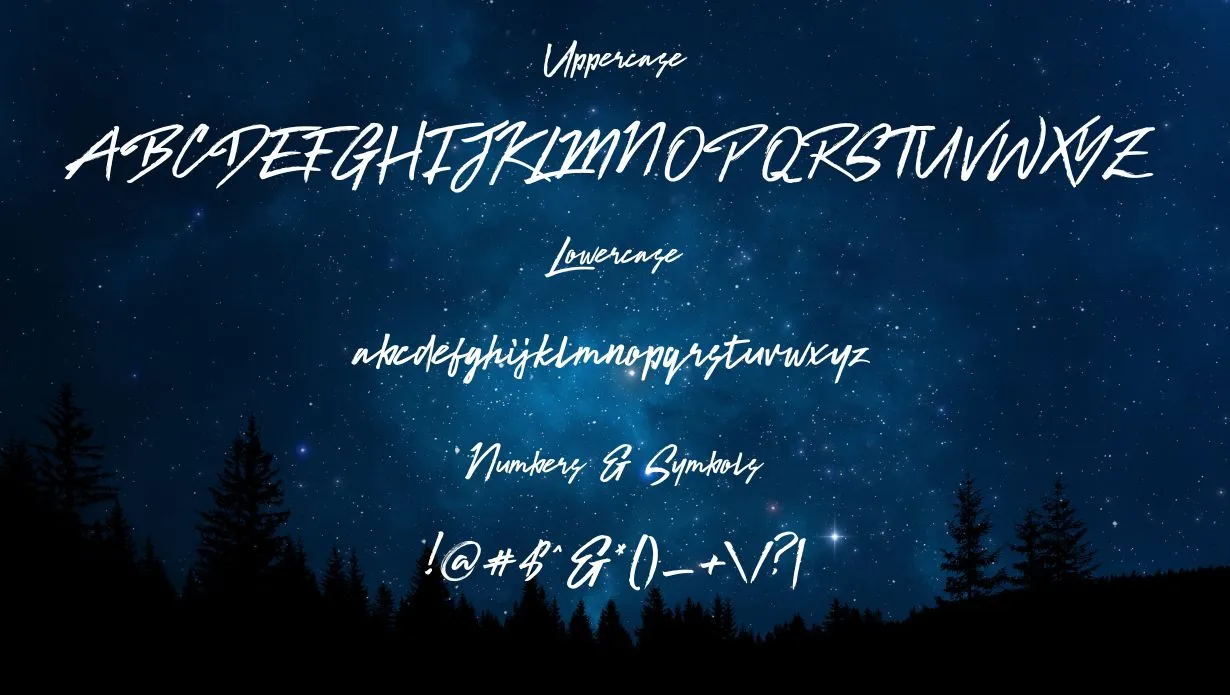
The Brat Brush Typeface font offers a hand-painted aesthetic, evoking a casual and artistic feel. Its appearance resembles handcrafted brushwork. In Adobe Photoshop, it infuses a playful and artsy touch into designs, adding creativity to visuals.
Applied within CSS, it imparts a fun and creative essence to web elements. In Canva, it’s ideal for producing lively and imaginative social media posts or artistic event visuals that convey a sense of playfulness and creativity.
| Name | Brat Brush Typeface Font |
| Designer | khurasan |